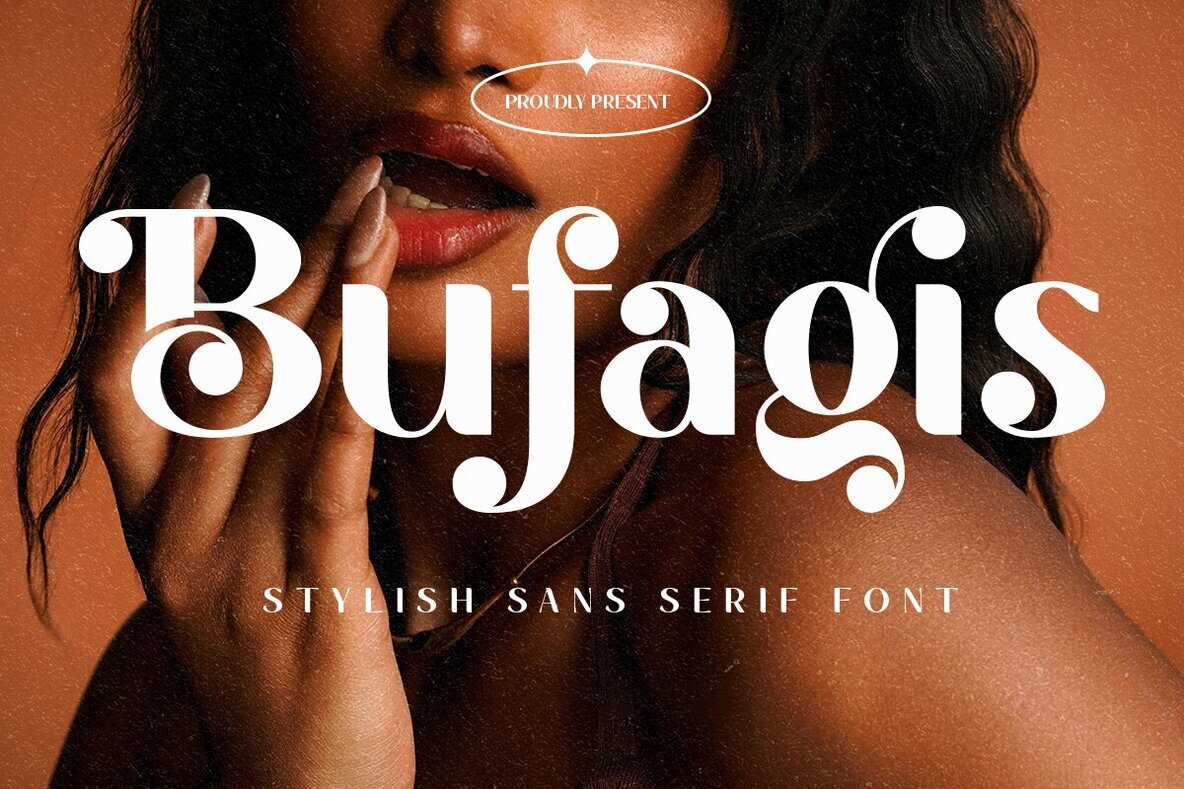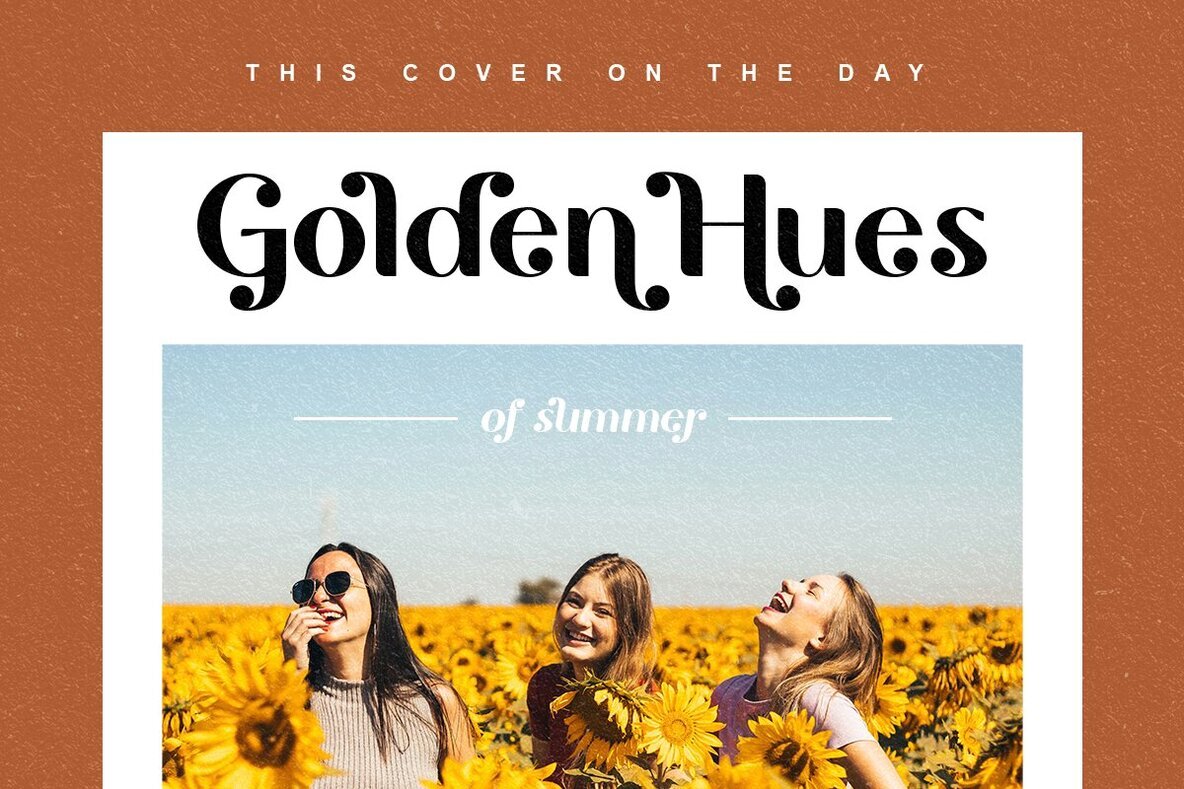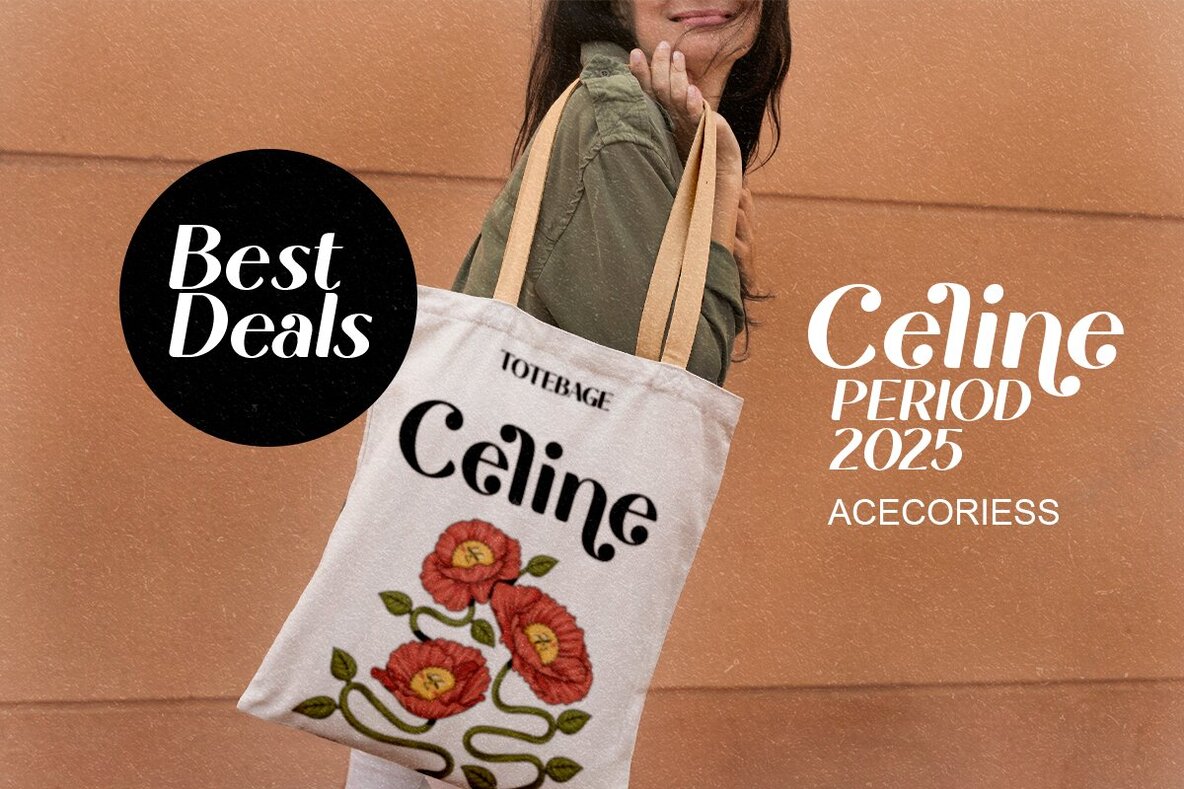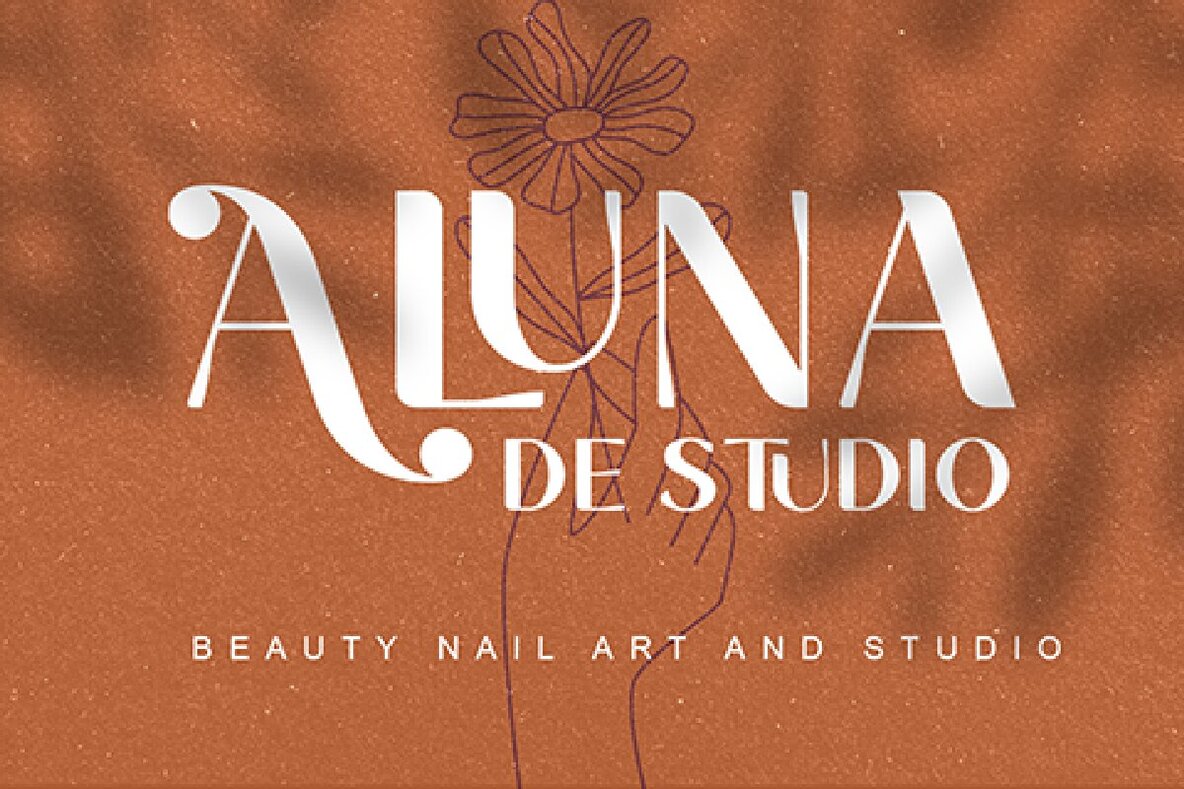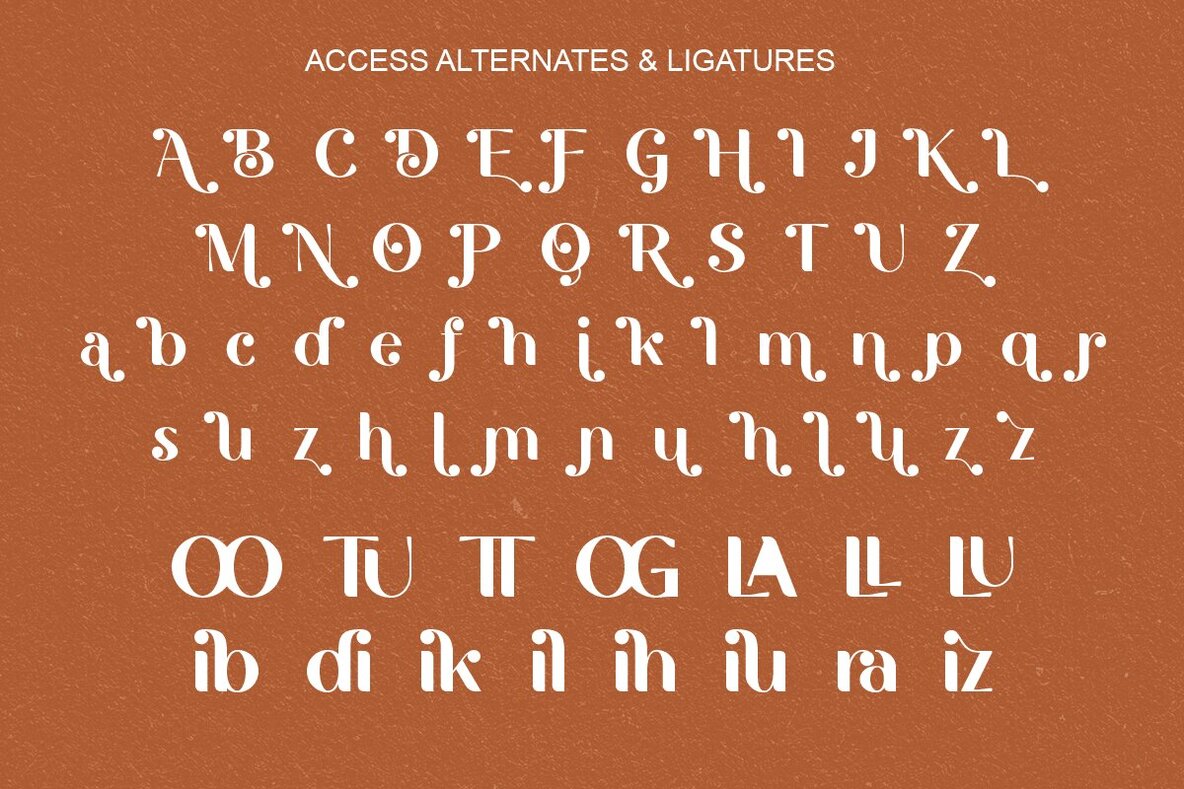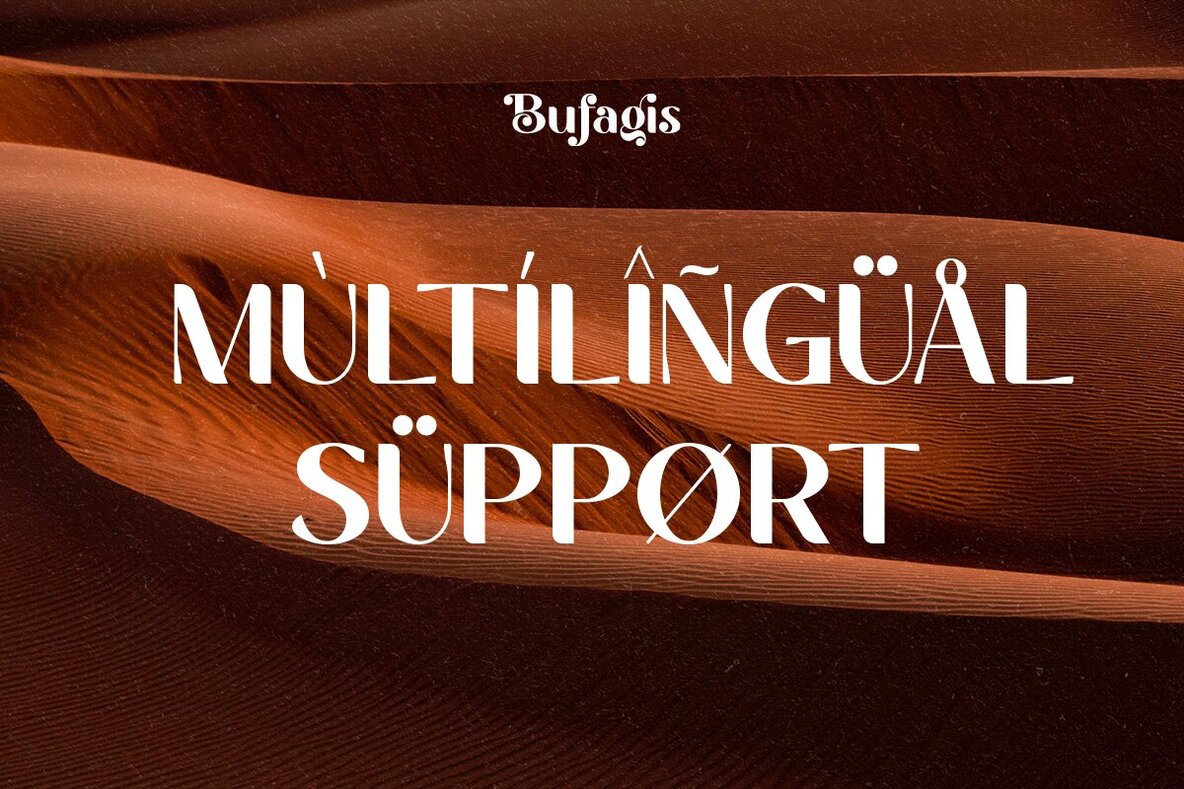
Bufagis Font
Discover the elegance of Bufagis, a refined sans serif font that seamlessly blends style and versatility. Perfect for ads, branding, and editorial work, Bufagis stands out in titles, headlines, and packaging design. With an array of alternate characters and natural ligatures, this font adds a classy touch to any project, ensuring a flawless and captivating finish.Bufagis: A Timeless Sans Serif